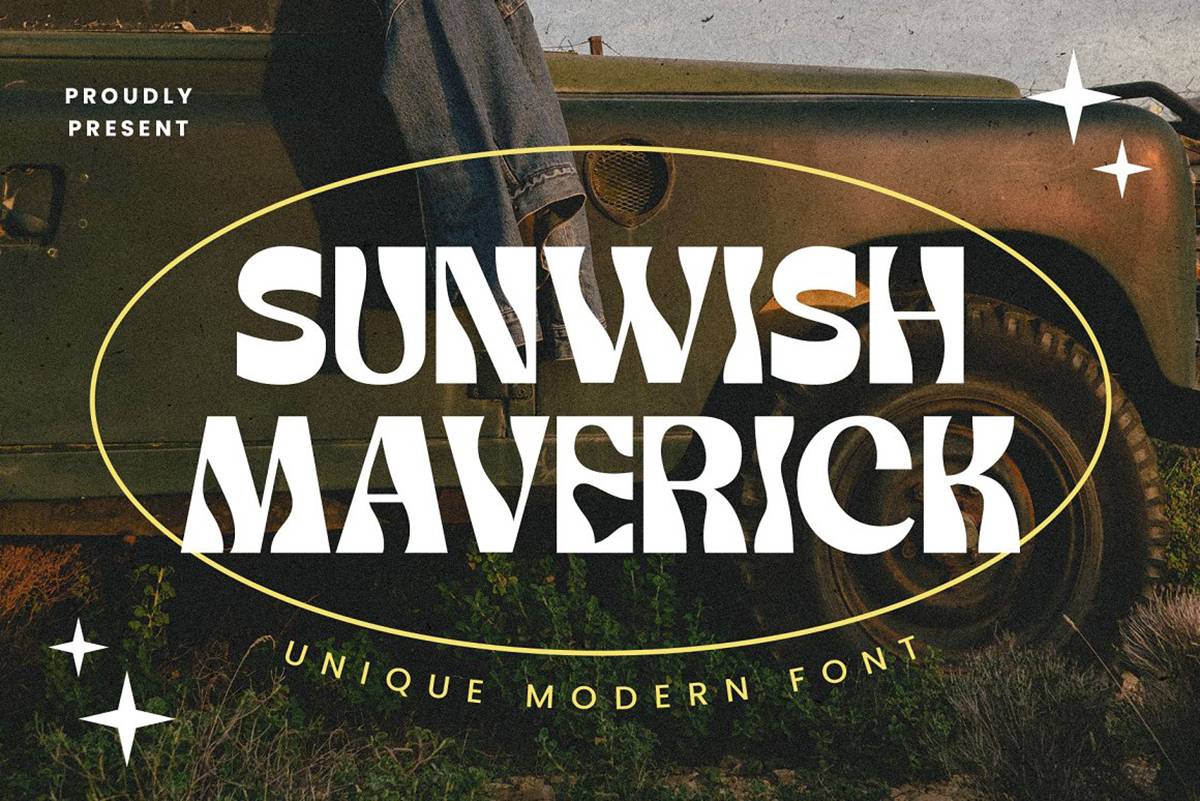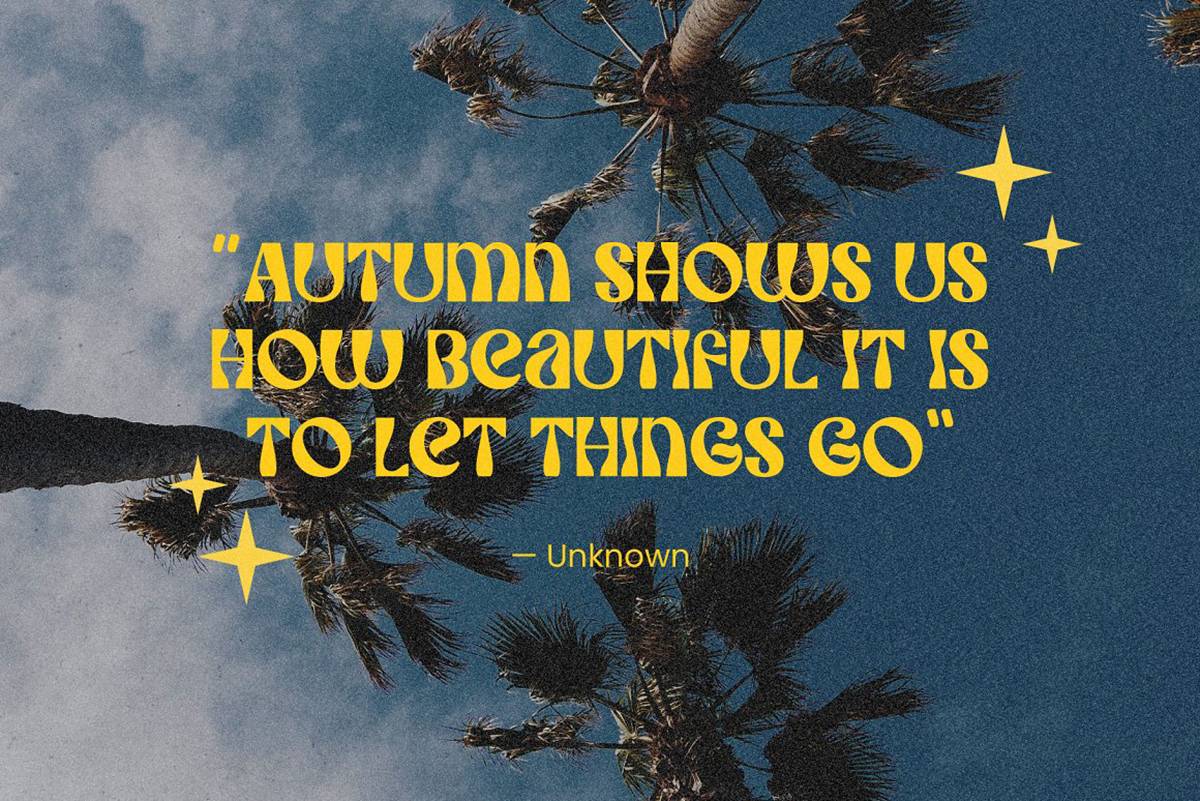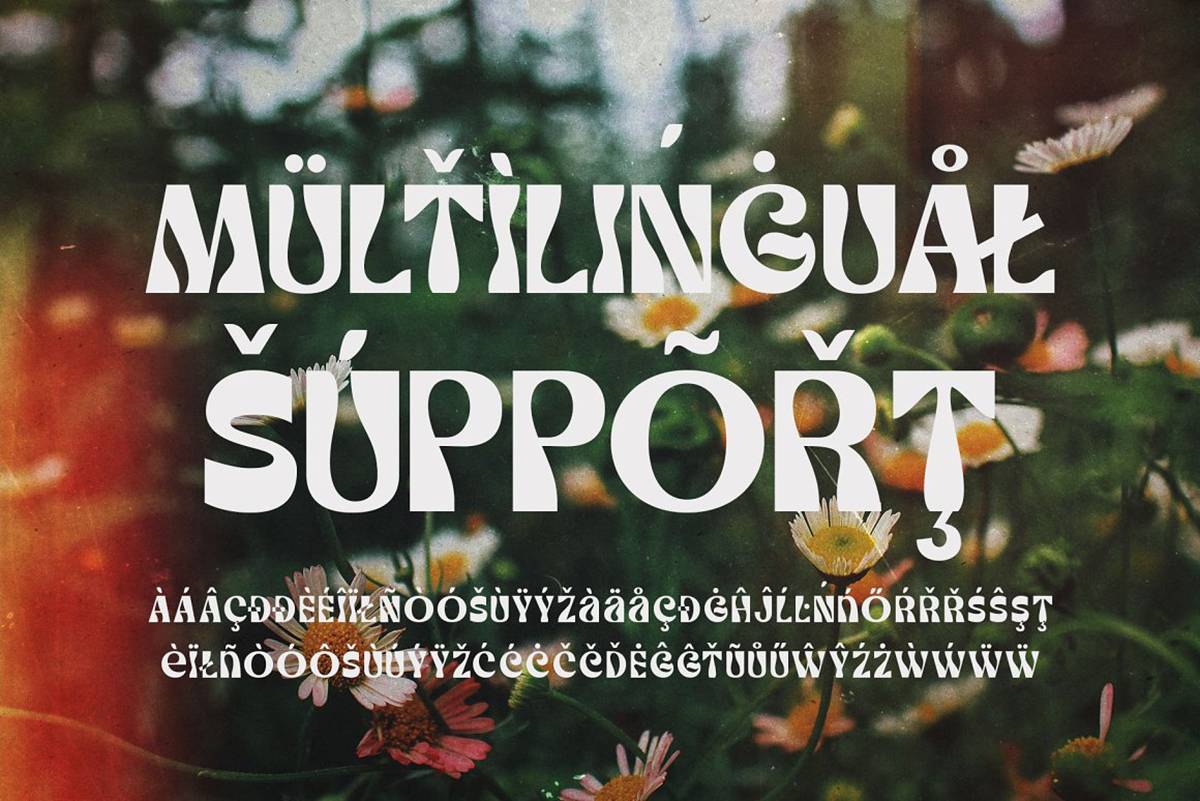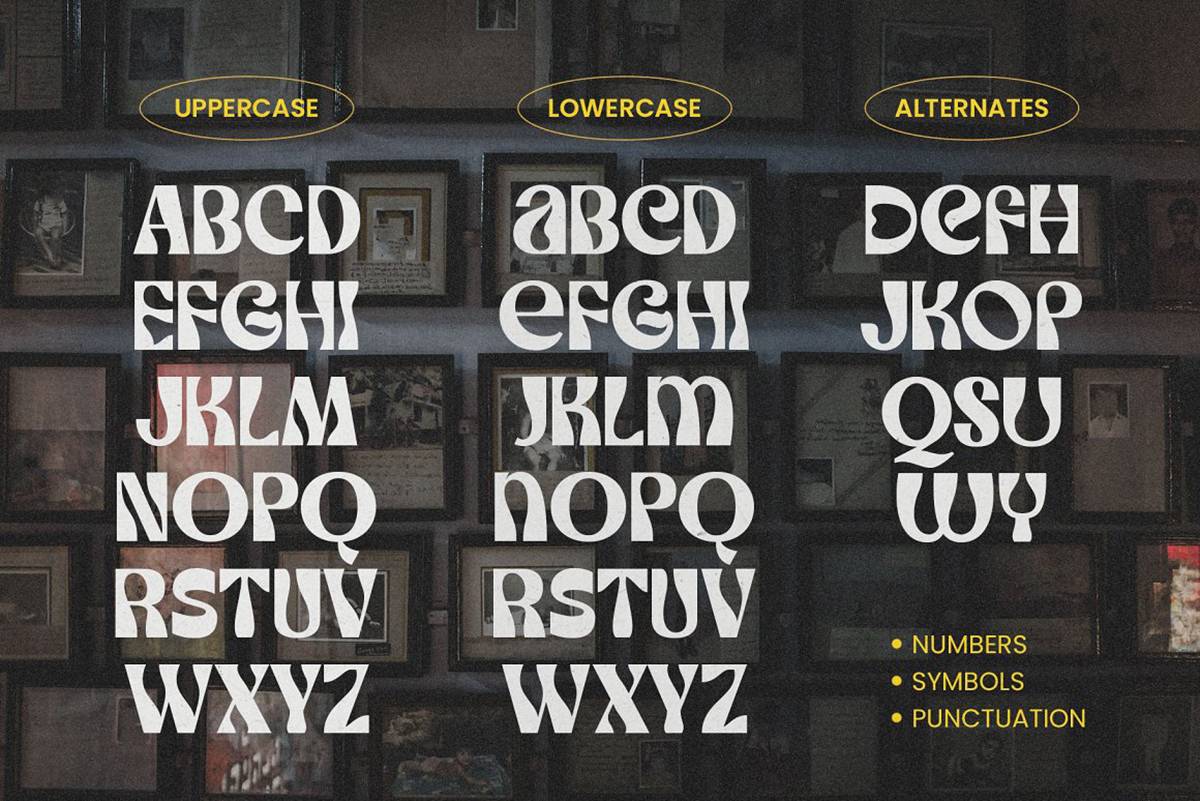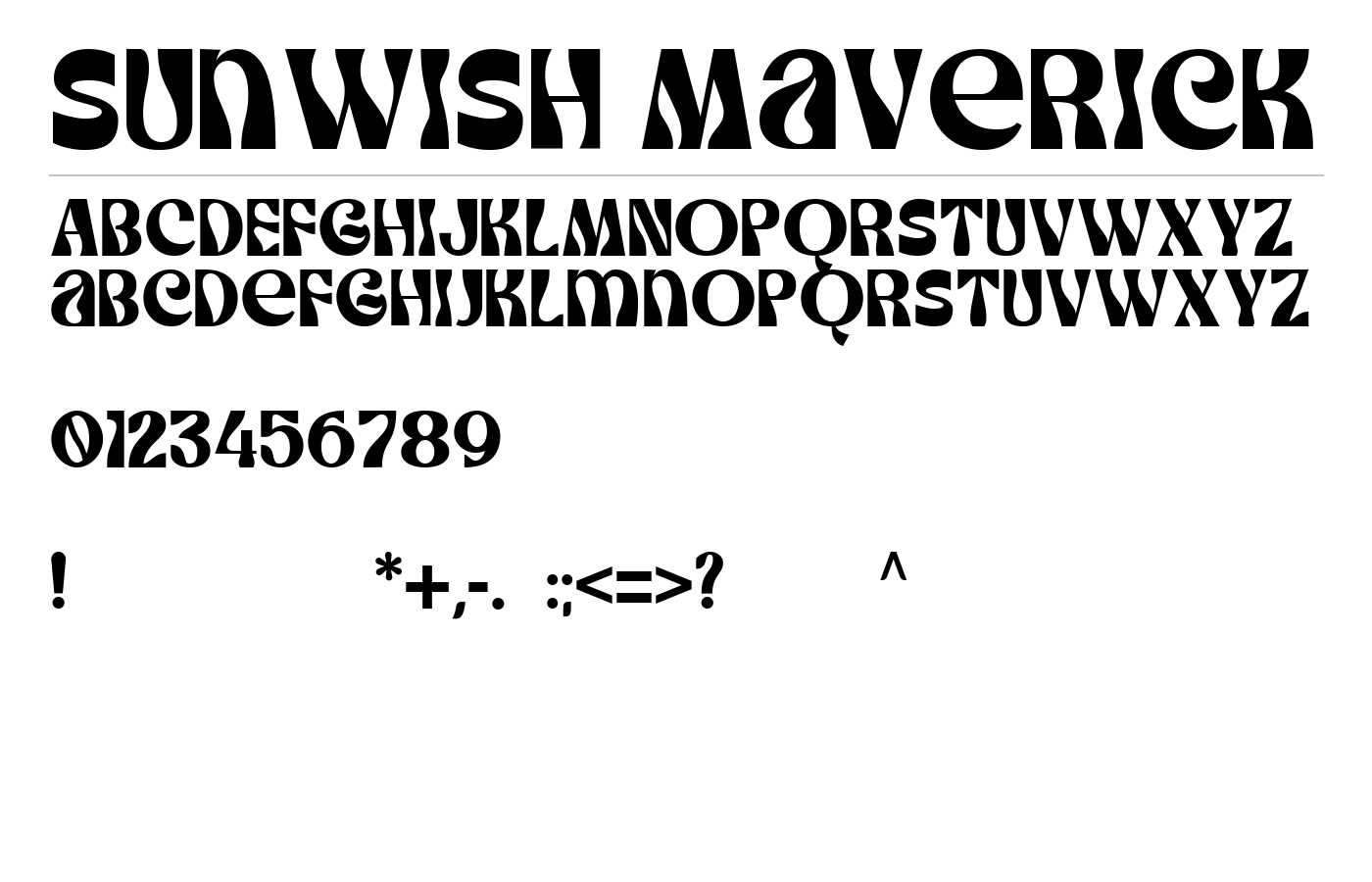
Sunwish Maverick is a bold, decorative serif font with a strong, artistic flair that combines thick and thin strokes with high contrast and unique, playful letterforms. Its stylized curves and sharp edges give it a modern, edgy feel, making it perfect for eye-catching logos, posters, and fashion branding where personality and creativity are key. This font works best in headlines and display settings, adding a distinctive, memorable touch to any design.
Sunwish Maverick Font
About Sunwish Maverick Font
| Font family | Sunwish Maverick Font |